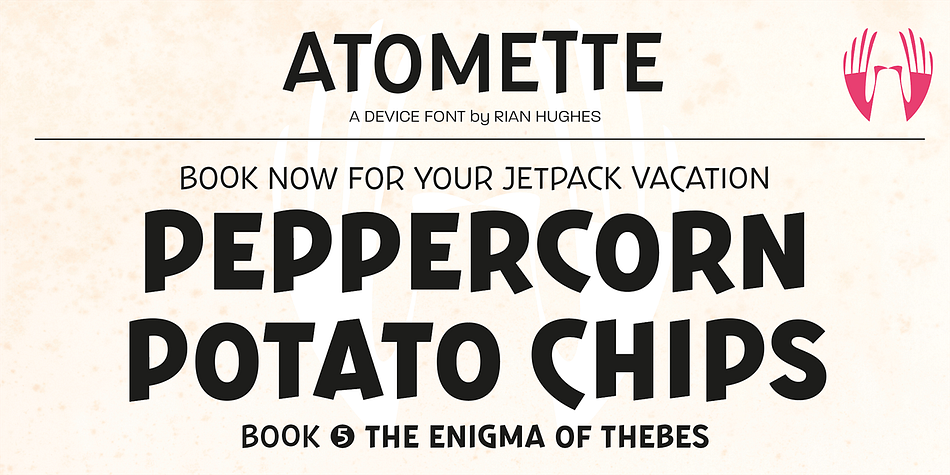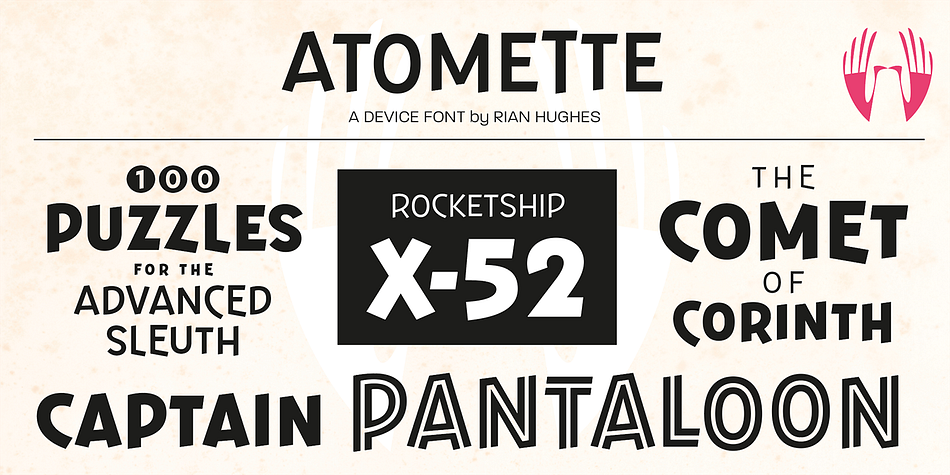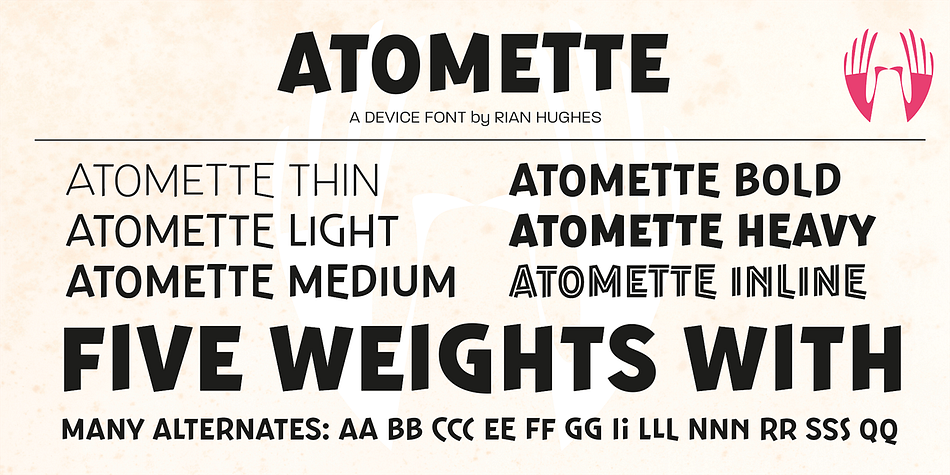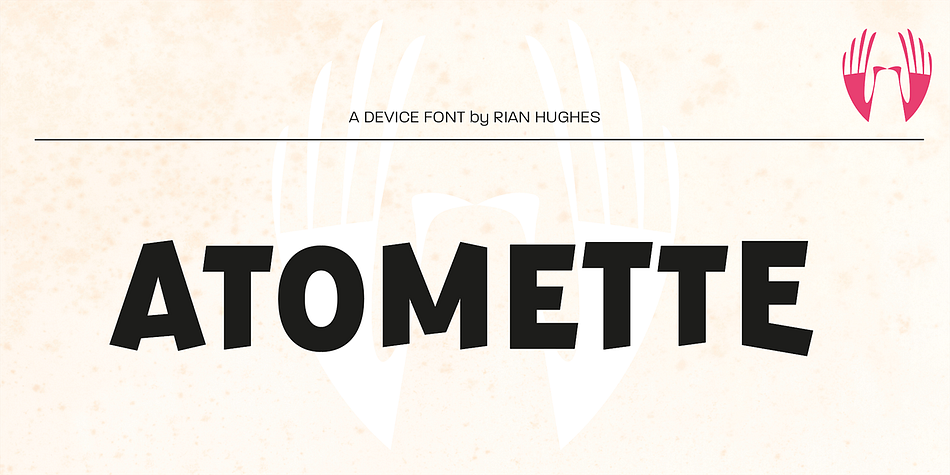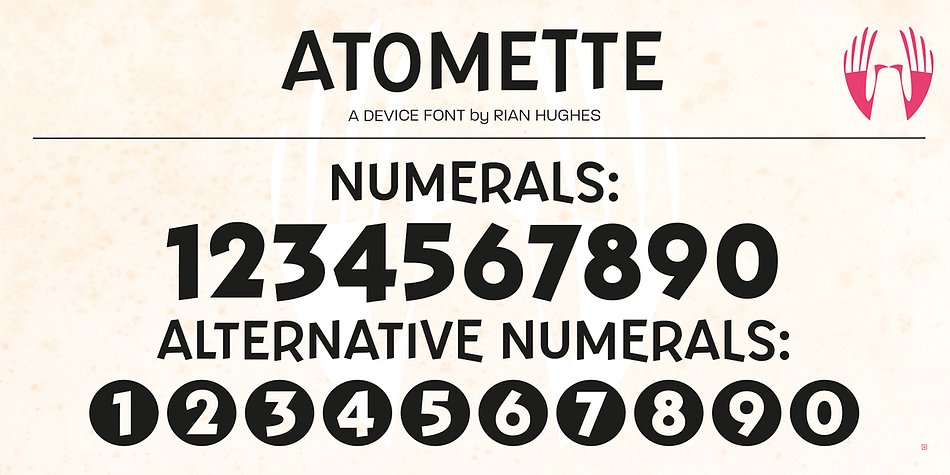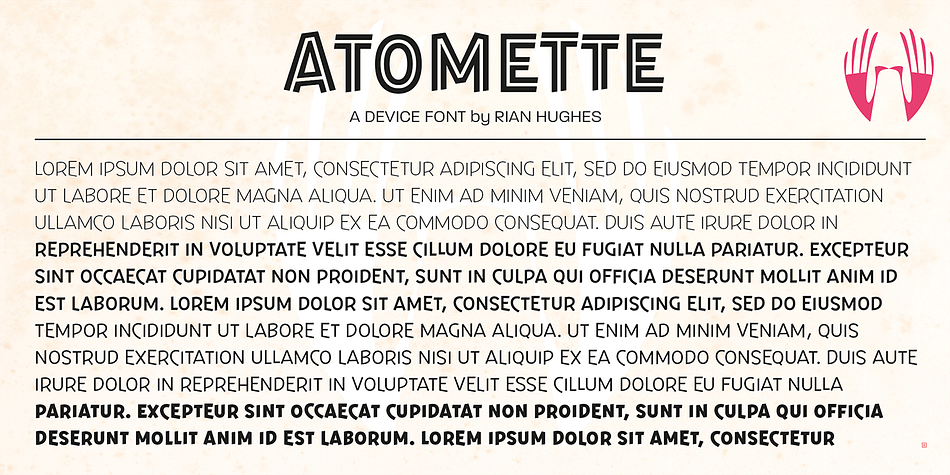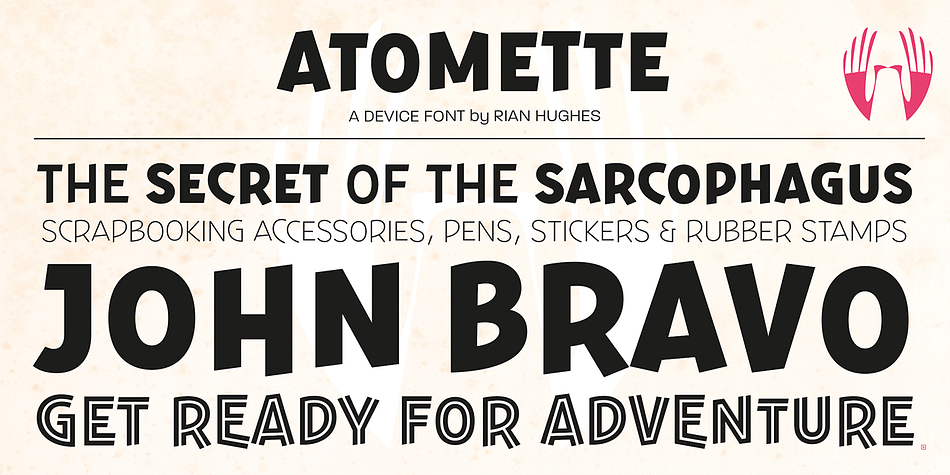
Designed by Rian Hughes, Atomette is a display sans font family. This typeface has six styles and was published by Device.
Atomette is a bouncy sans that is friendly without being flippant, warm yet still stylish. The upper case and lower case options provide letters with less or more animation. Five weights plus an inline provide a neat mini-family to cover all your requirements. Suitable for snack packaging, comic books, toys, celebratory banners, book covers and games. Contains two or three options for each letter, including automatically-substituting letter-pairs to prevent repetition, plus an alternate set of numbers in circles. These can be chosen from the Glyphs palette or toggled on and off in the Opentype panel.